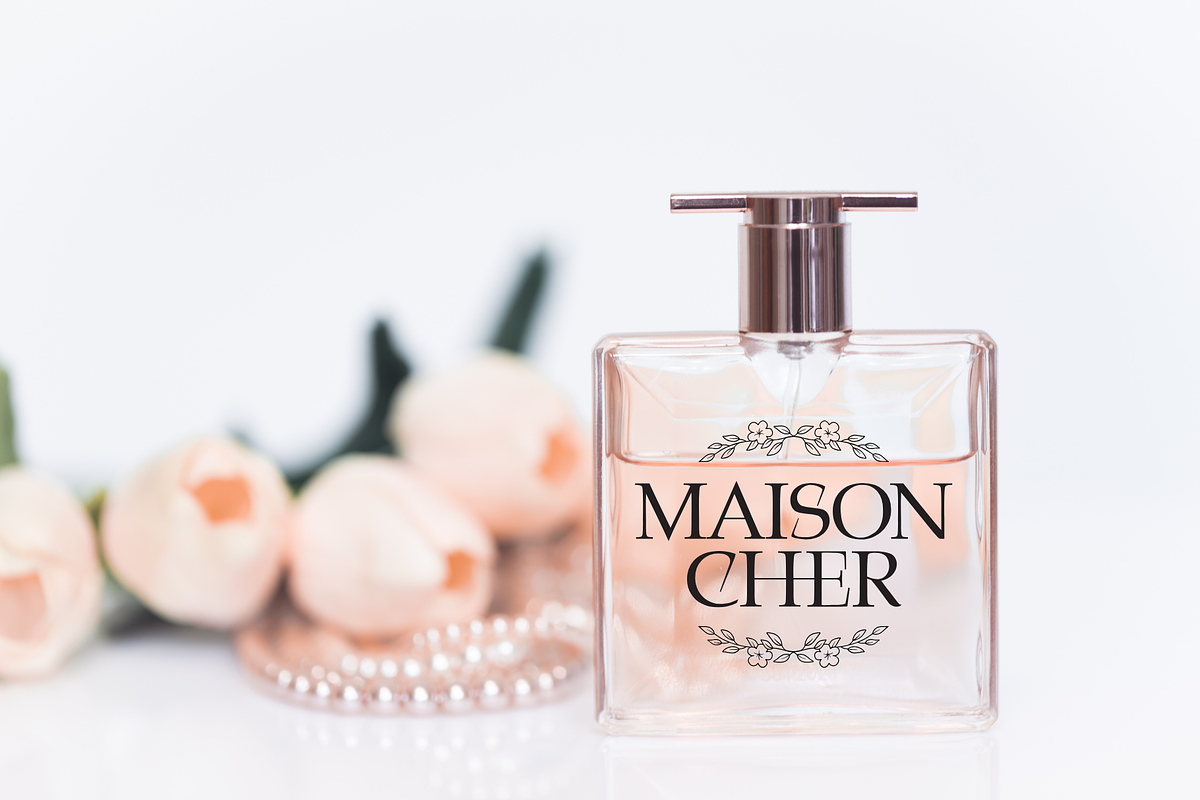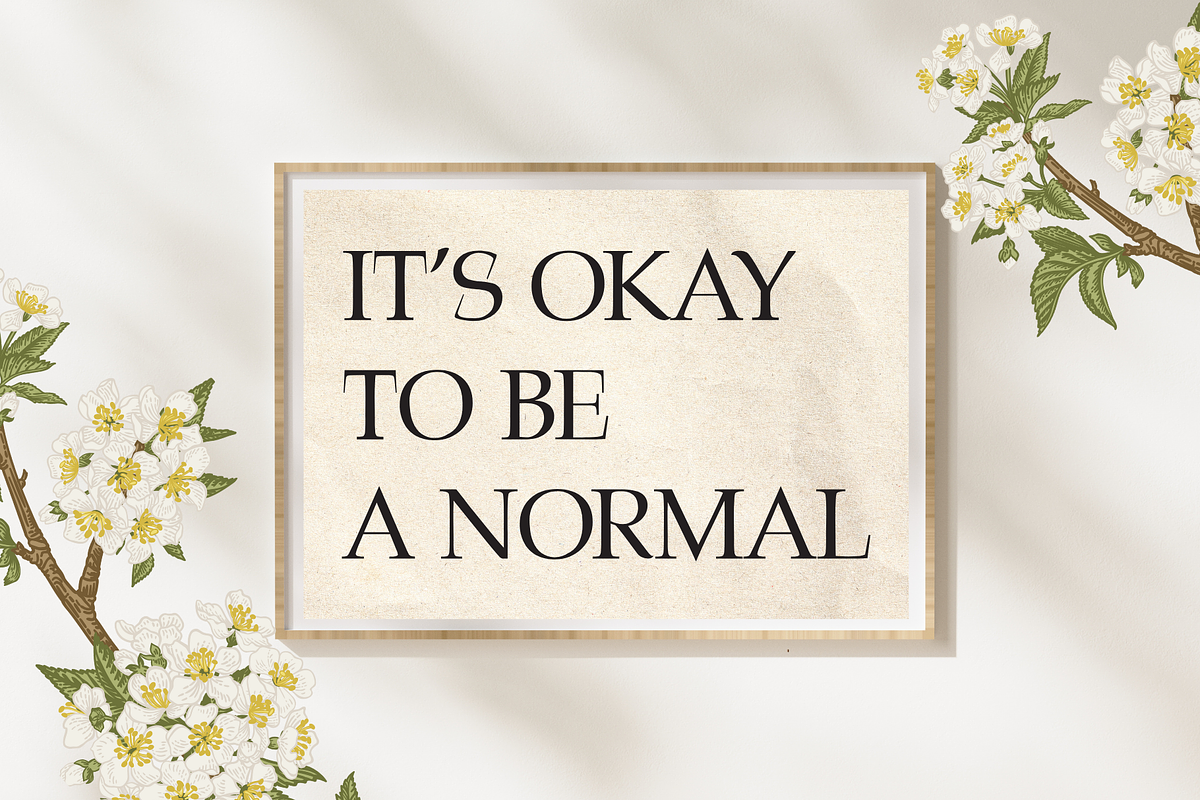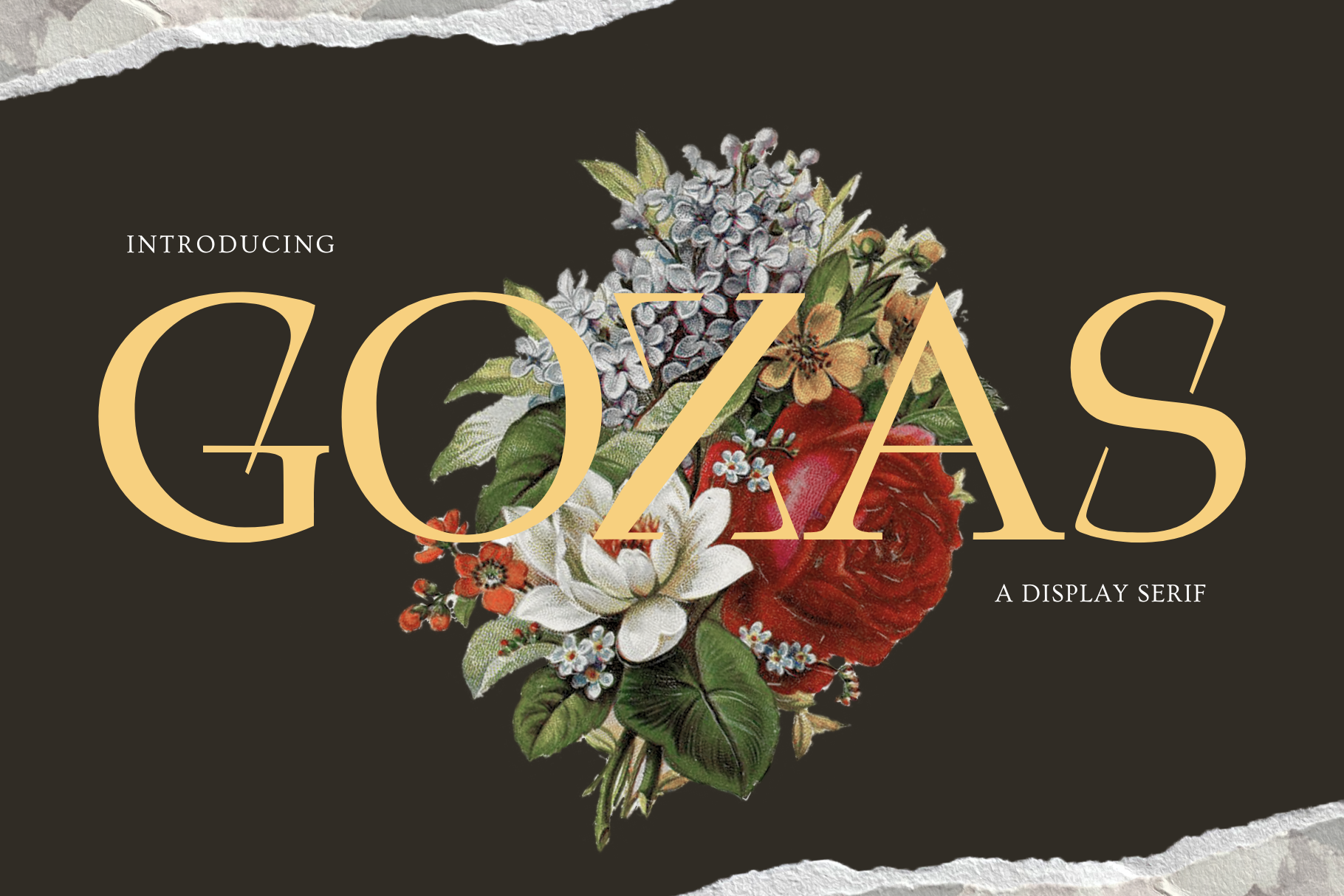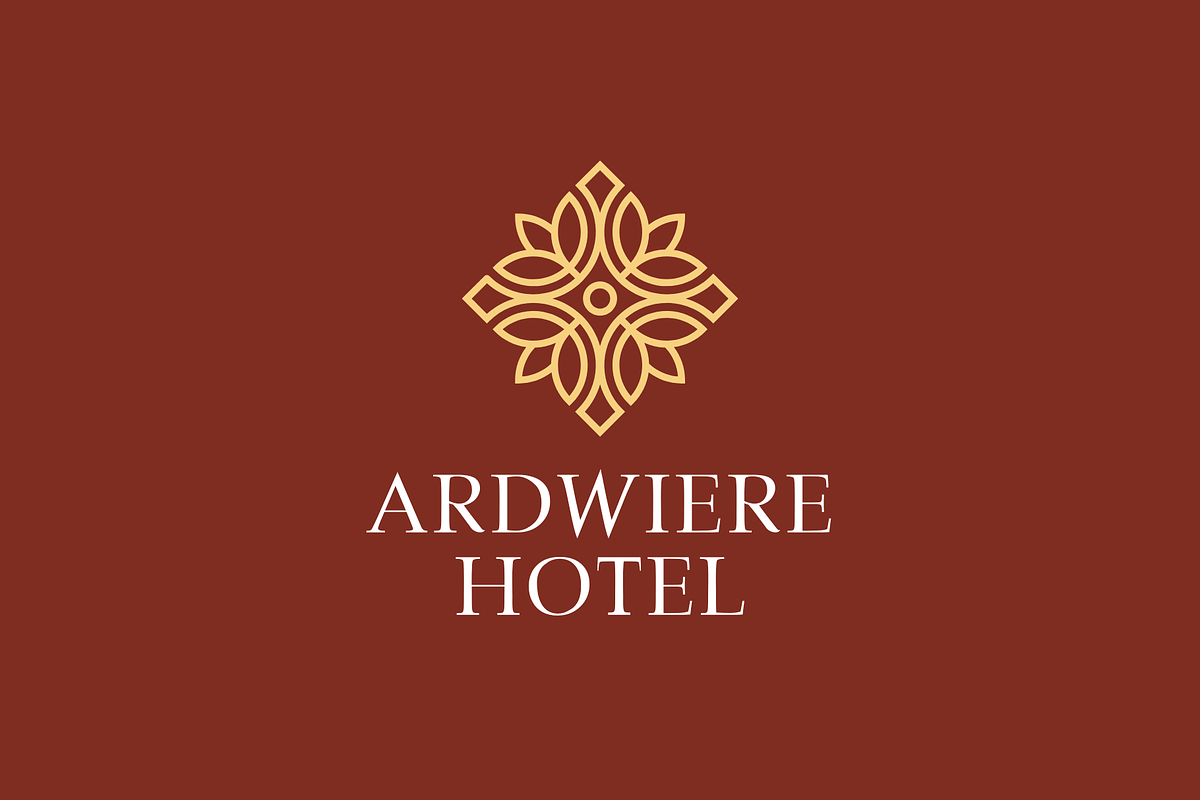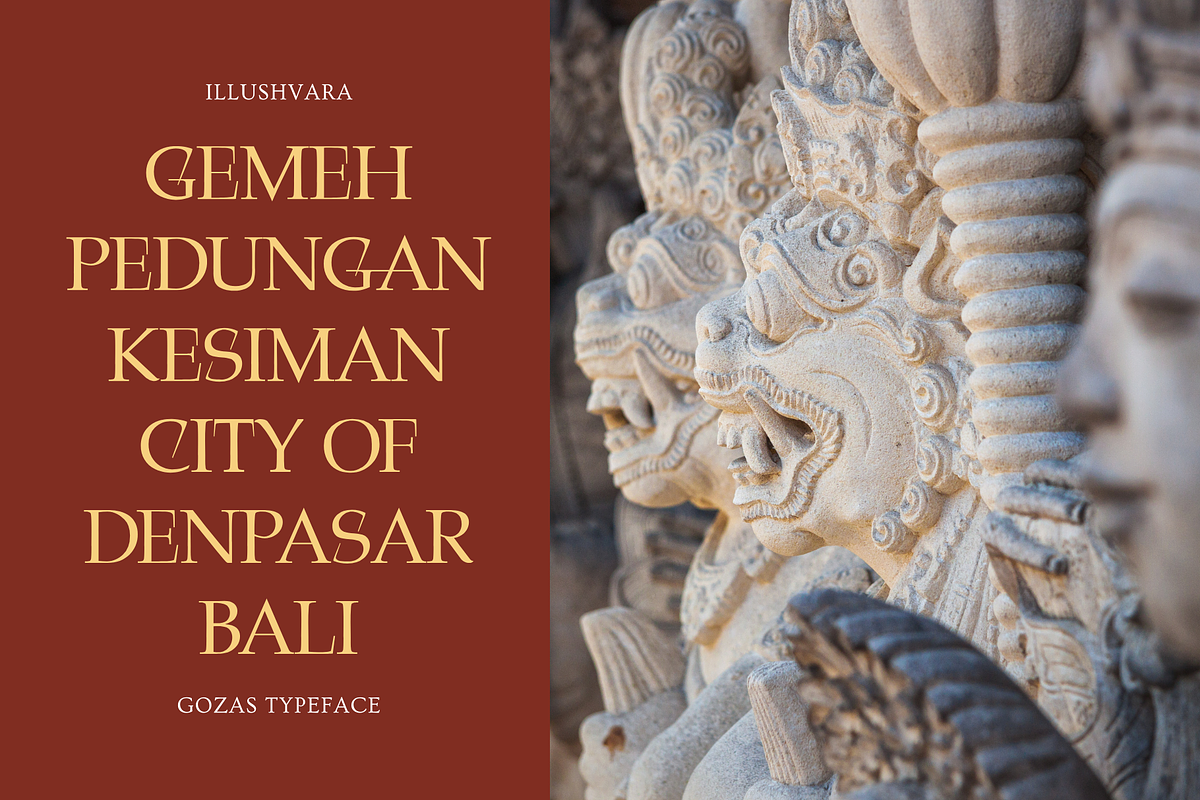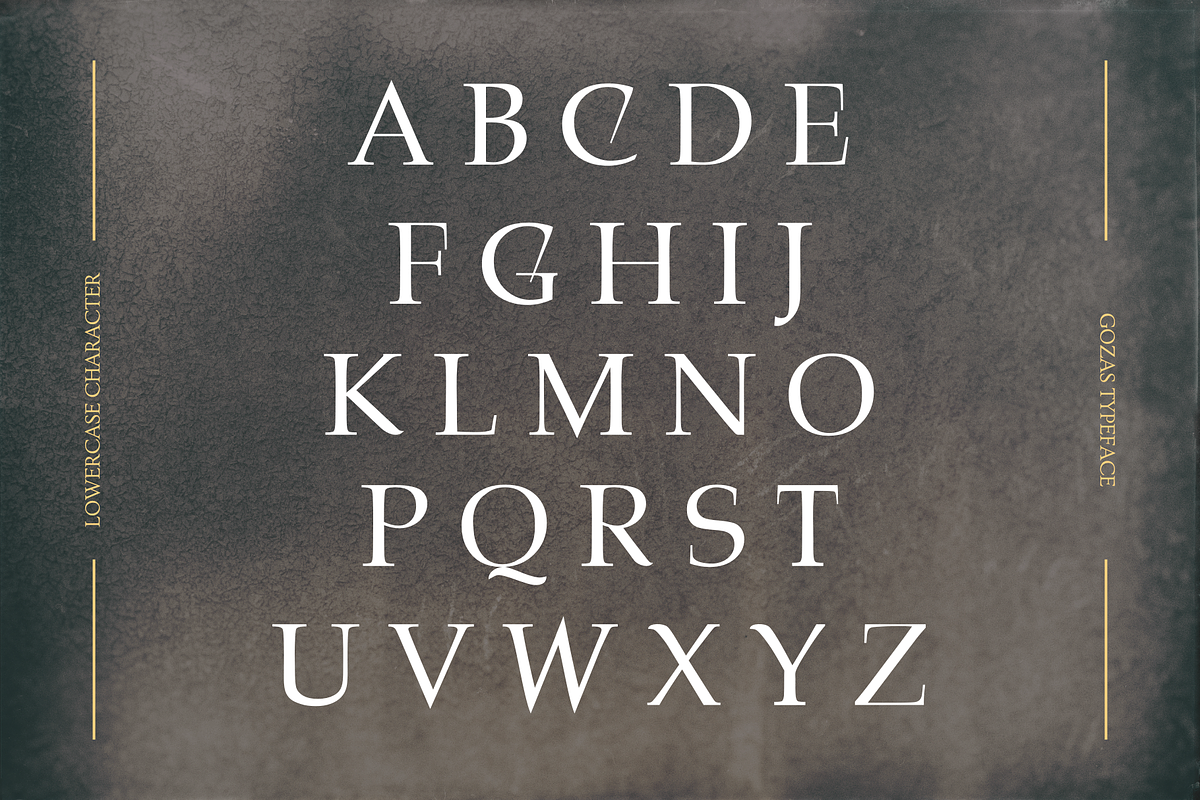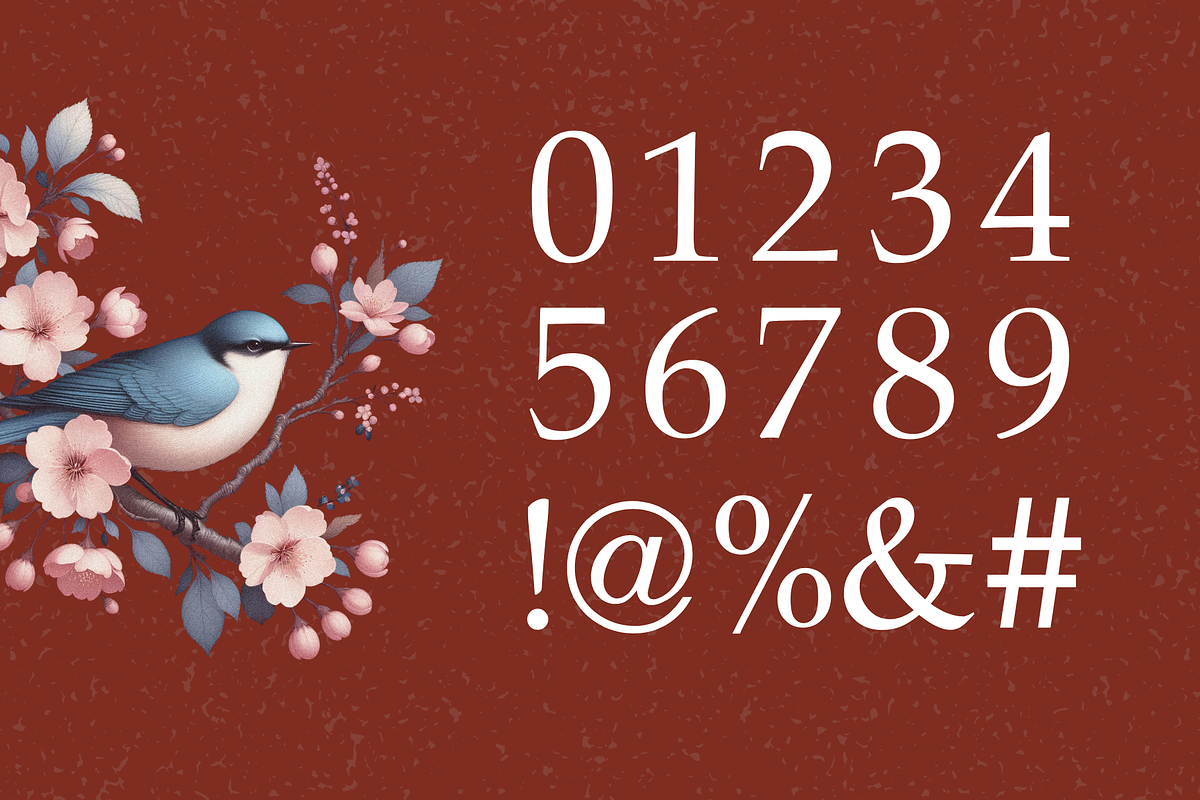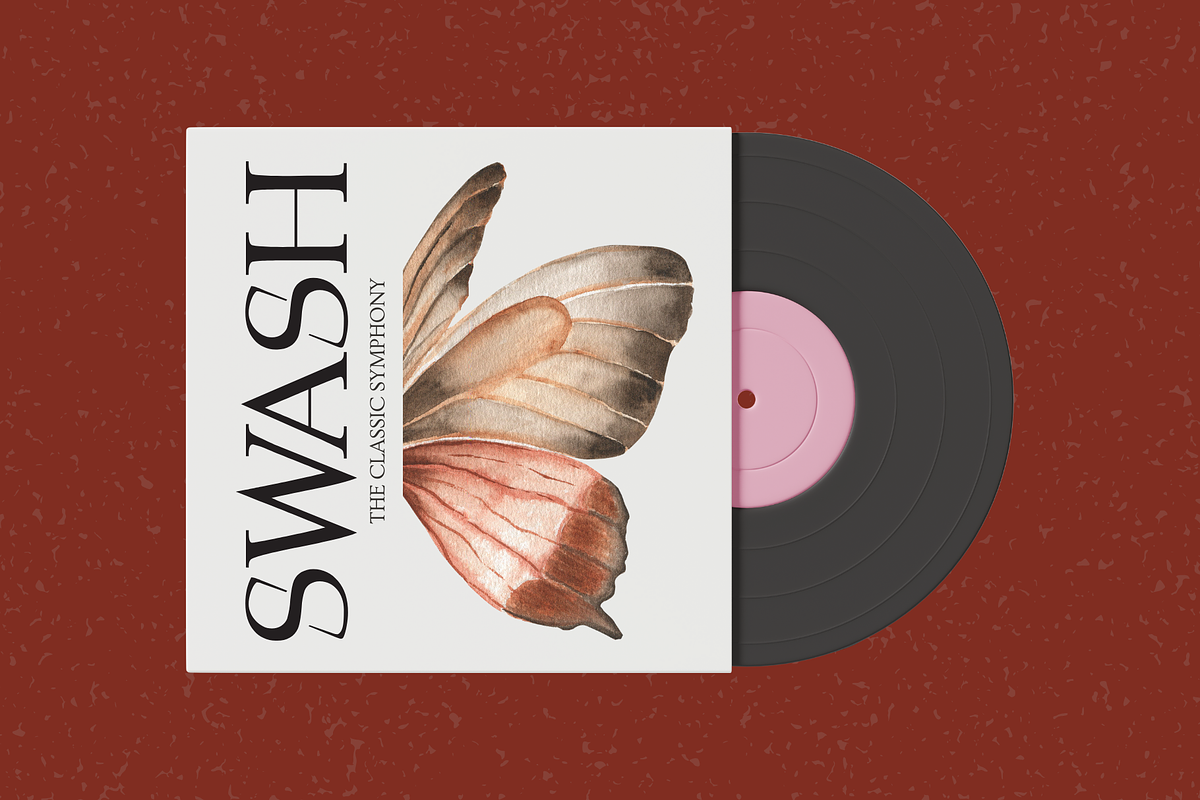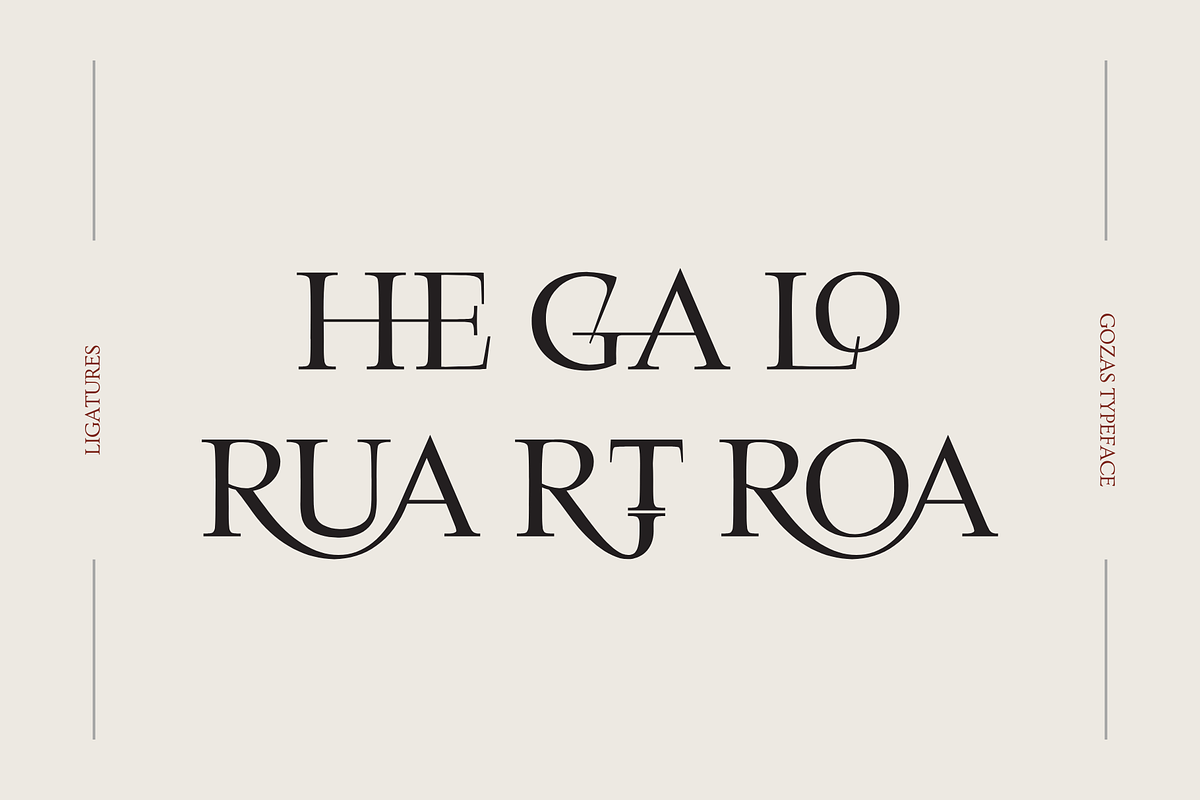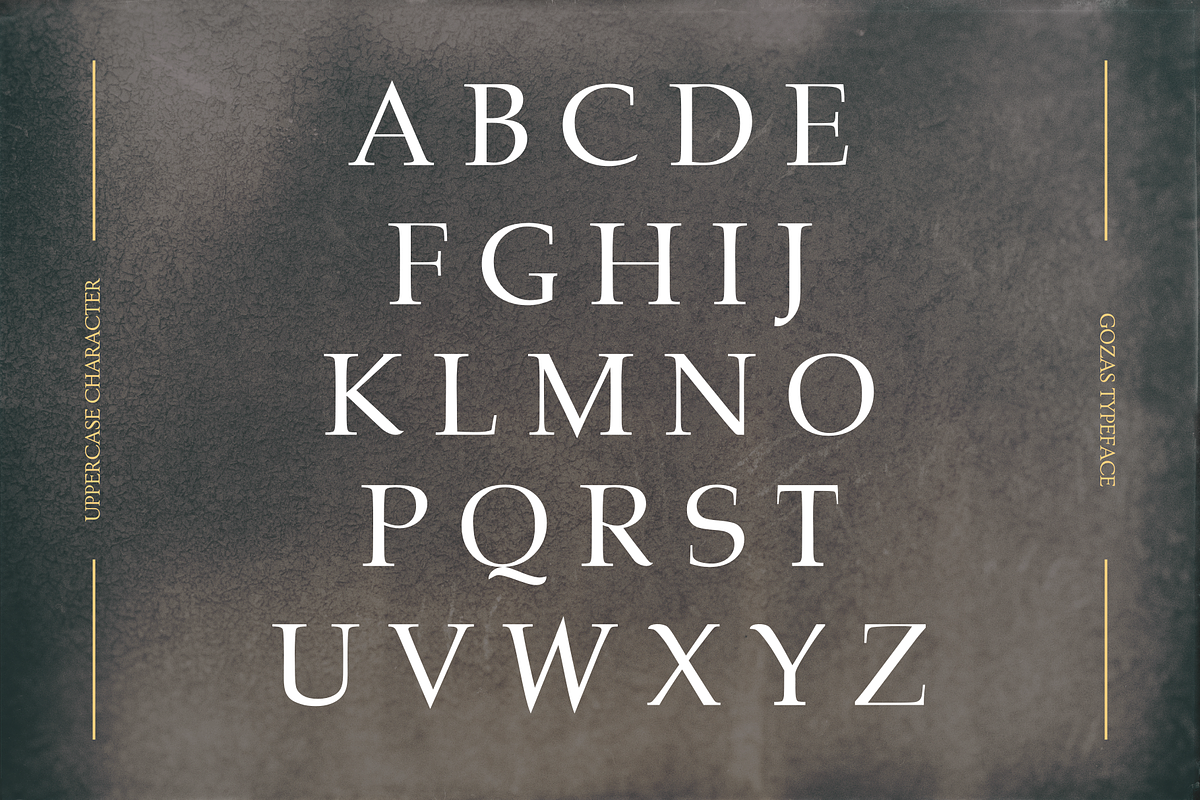
Gozas - Branding Logo Font
Say hello to Gozas – Branding Logo Font
An elegant, art deco-inspired display typeface with dramatically elongated serifs, exuding sophistication and vintage glamour. This font captures the bold geometry and intricate detailing of the 1920s, blending sharp angles with smooth curves for a timeless aesthetic. Perfect for luxury branding, editorial headlines, and high-end packaging, it commands attention with its refined yet extravagant presence, evoking a sense of grandeur and opulence.